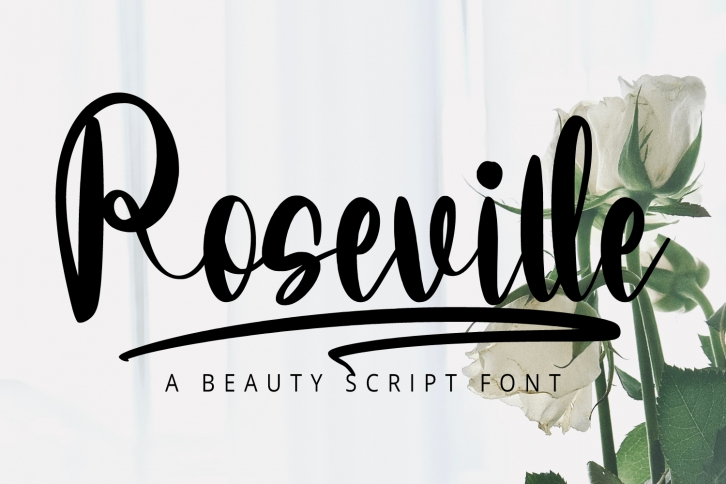
Roseville is a lovely handwritten font. It is perfectly suited for traditional media and web. Great for crafters and graphic artists alike. Add it to your most creative ideas and notice how it makes them come alive. It looks stunning on wedding invitations, thank you cards, quotes, greeting cards, logos, business cards and every other design which needs a handwritten touch.